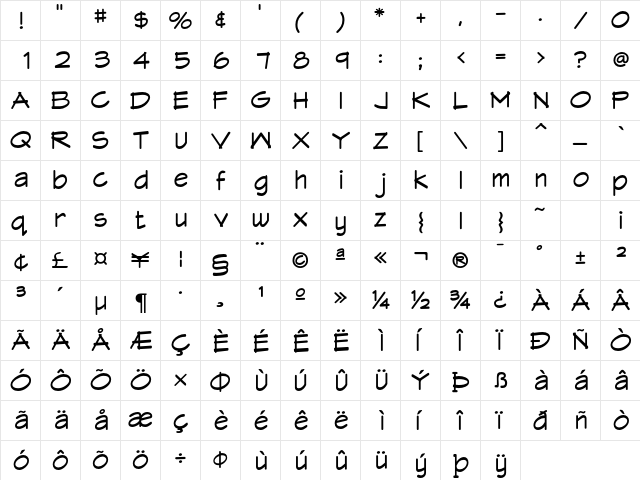
Mr Hand2 Regular
Design Context for Mr Hand2 Typeface
Mr Hand2 flows with the natural rhythm of handwritten lettering, making it ideal for designs that call for warmth and personal expression.
Font Pairing: Combine Mr Hand2 with a simple geometric sans for maximum contrast — the tension between flowing curves and clean structure is a classic typographic pairing.
Pro Tip: Use Mr Hand2 for short runs of text — names, titles, or taglines. Extended body copy in script faces tires the eye quickly.